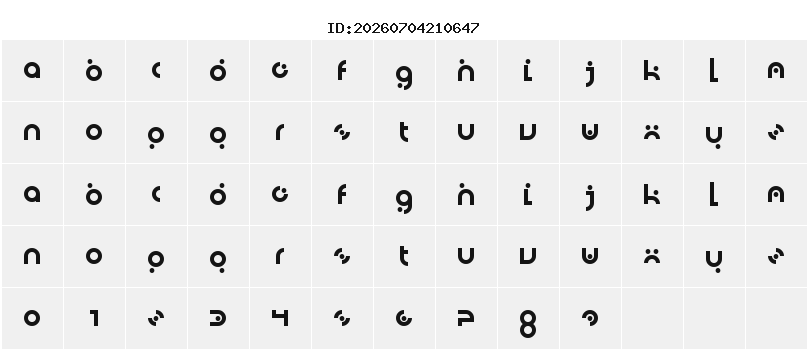
• Font Name: DotLirium
• Designer: Andrew McCluskey
• Description: “DotLirium” was built with FontStruct
DotLirium.ttf is a modern, elegant sans-serif font designed for ultimate readability and visual harmony. Perfect for branding, headlines, web design, and print materials.